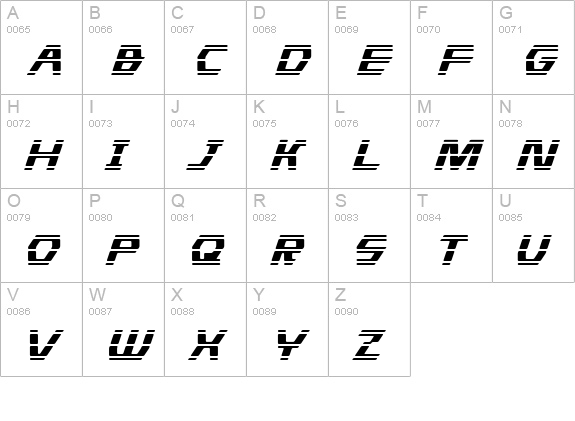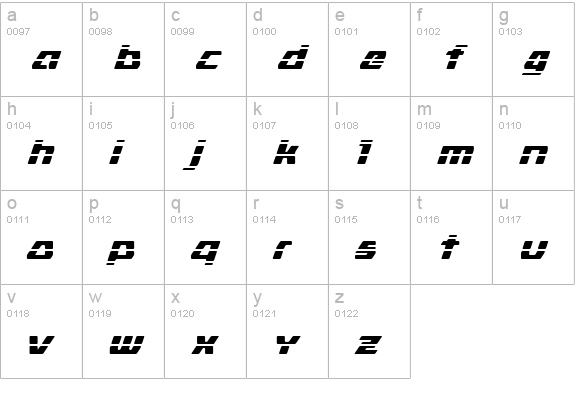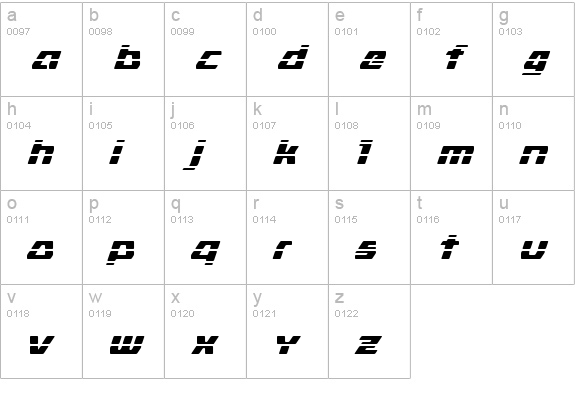
Stride Font Details
Stride font is a versatile and modern typeface that exudes elegance and sophistication. With its clean lines and balanced proportions, Stride is perfect for a wide range of design projects, from branding to editorial design. Its sleek and contemporary appearance makes it ideal for creating eye-catching headlines and striking logos. What sets Stride font apart is not only its stylish aesthetics but also its accessibility. This font is freely available to download at FontsMarket.com, making it easy for designers and creatives to incorporate it into their work without any restrictions. Whether you're working on a personal project or a client's design, Stride font is a reliable choice that will elevate your work to the next level. Enhance your designs with the timeless appeal of Stride font today.